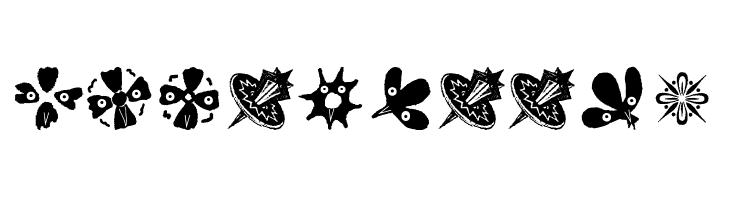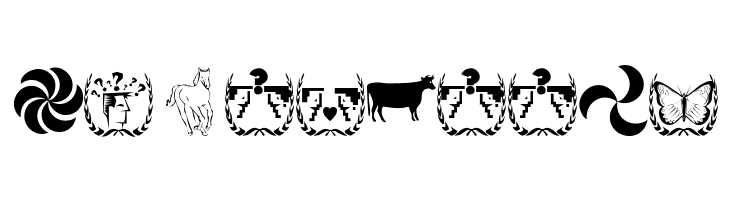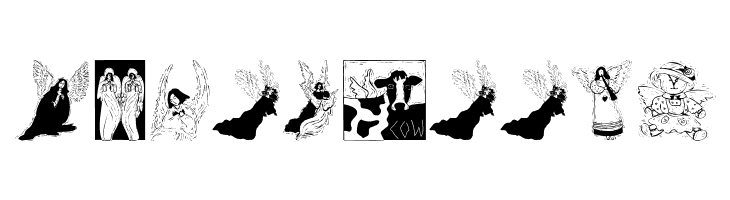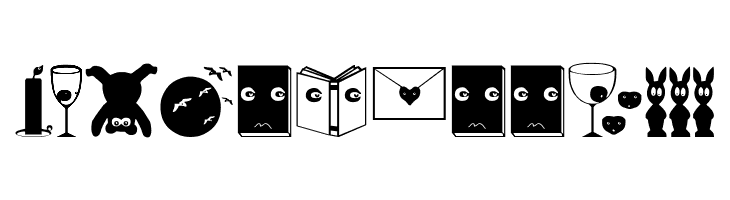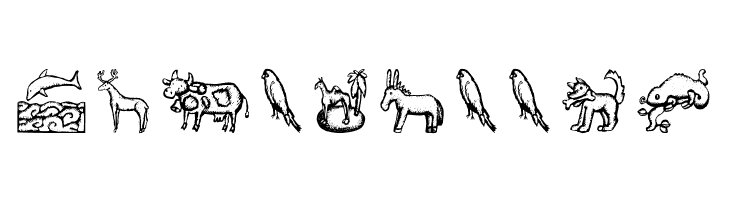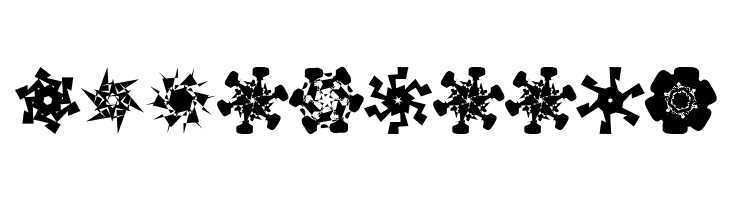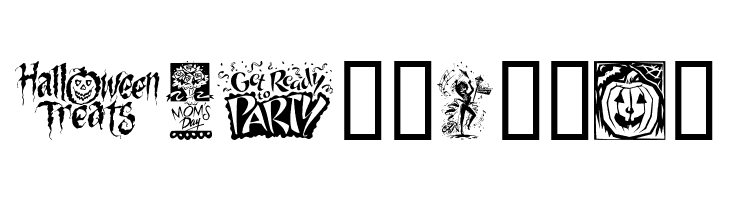
Ornamental dingbat font with floral and geometric motifs.
Ornamental dingbat font with animal and nature motifs.
A decorative dingbat font of banners, ribbons, and badges.
A playful dingbat font with angelic and festive illustrations.
Farm-themed dingbat font with cartoon-style illustrations.
A decorative icon-based font with varied pictograms.
Circus-inspired dingbat font with lively illustrations.
Hand-drawn woodcut animal illustrations in a decorative dingbat style.
Decorative dingbat font with occasion-themed illustrations.